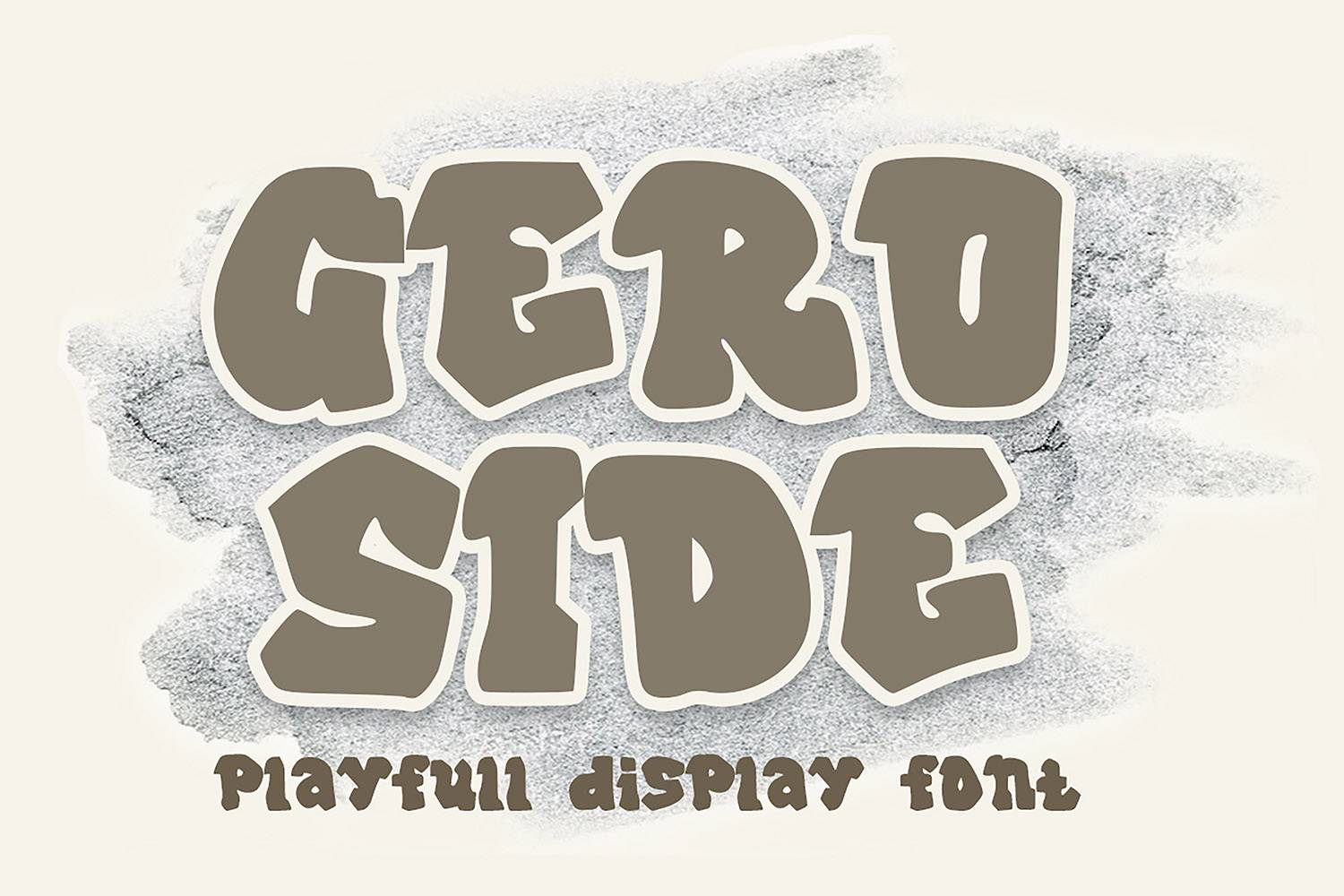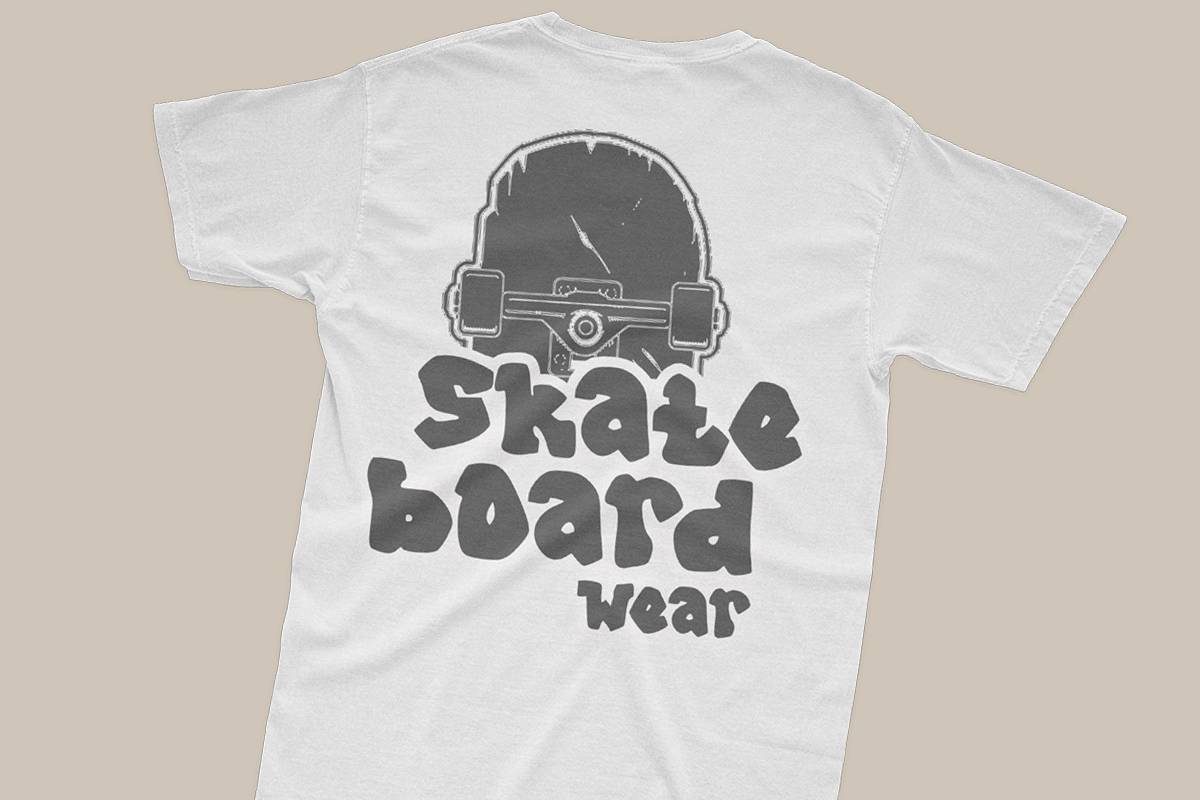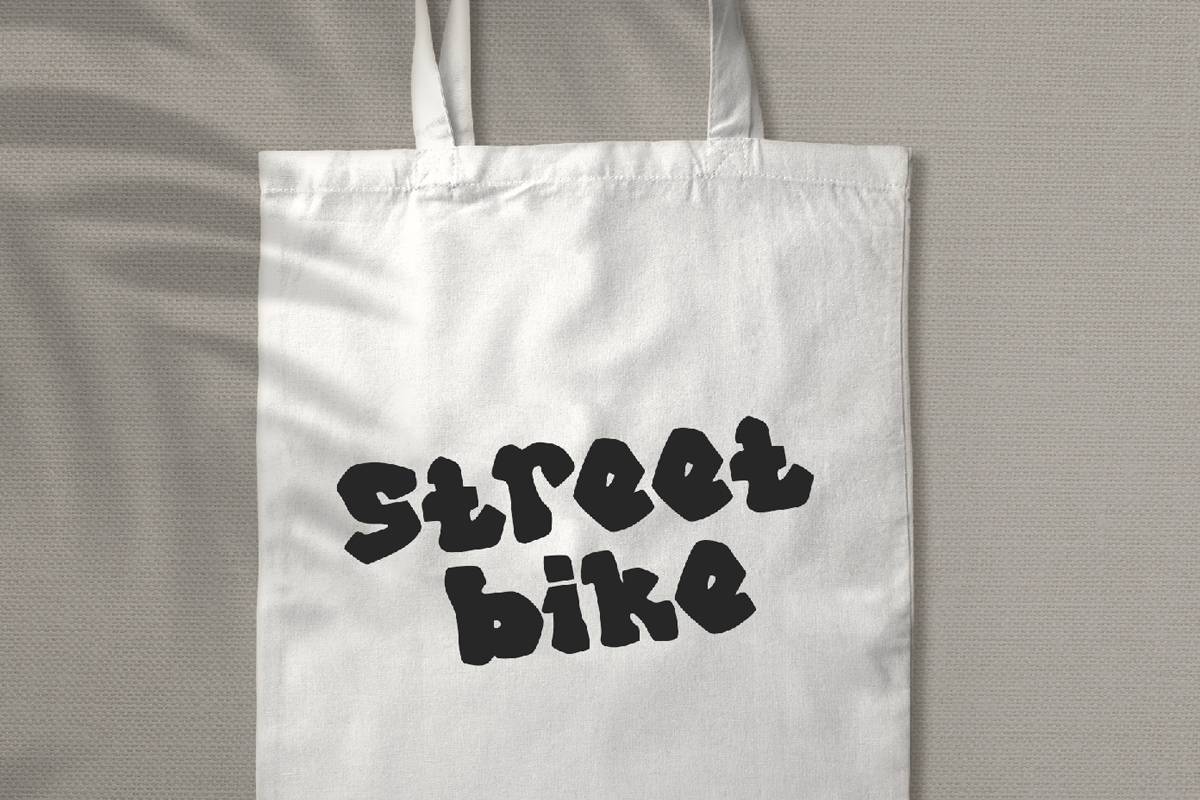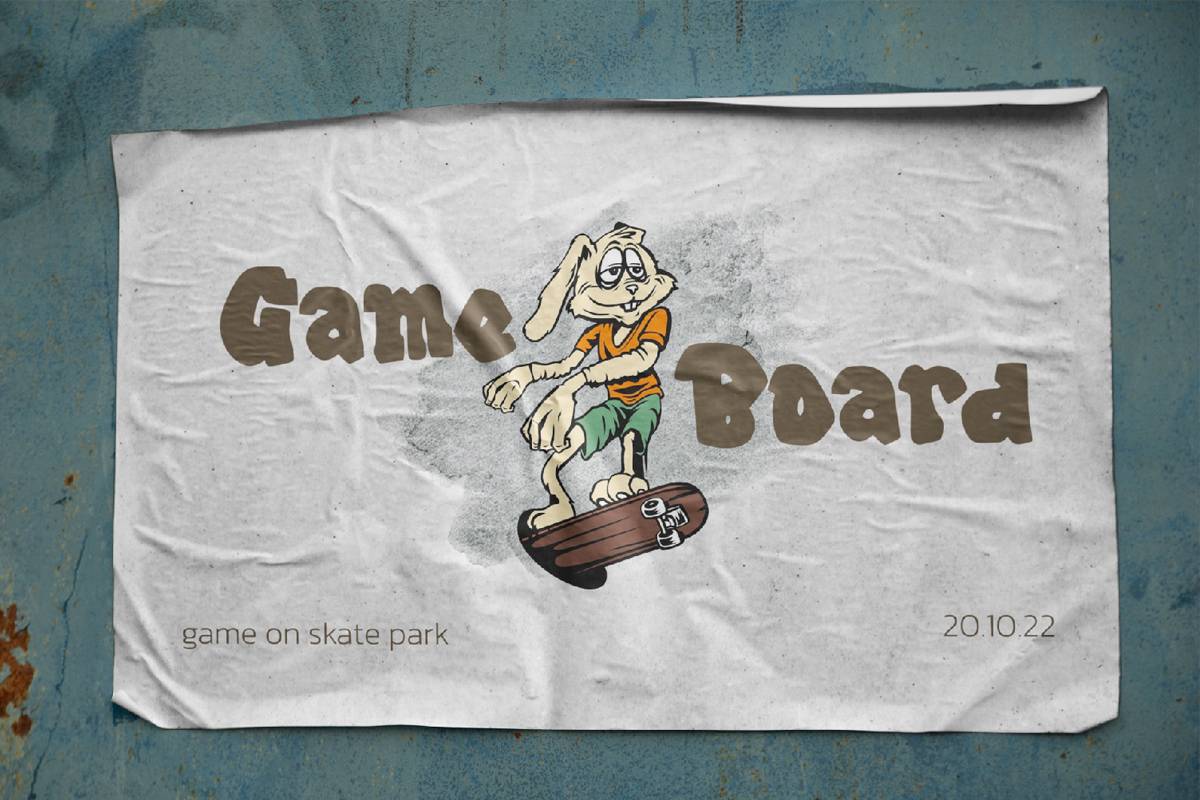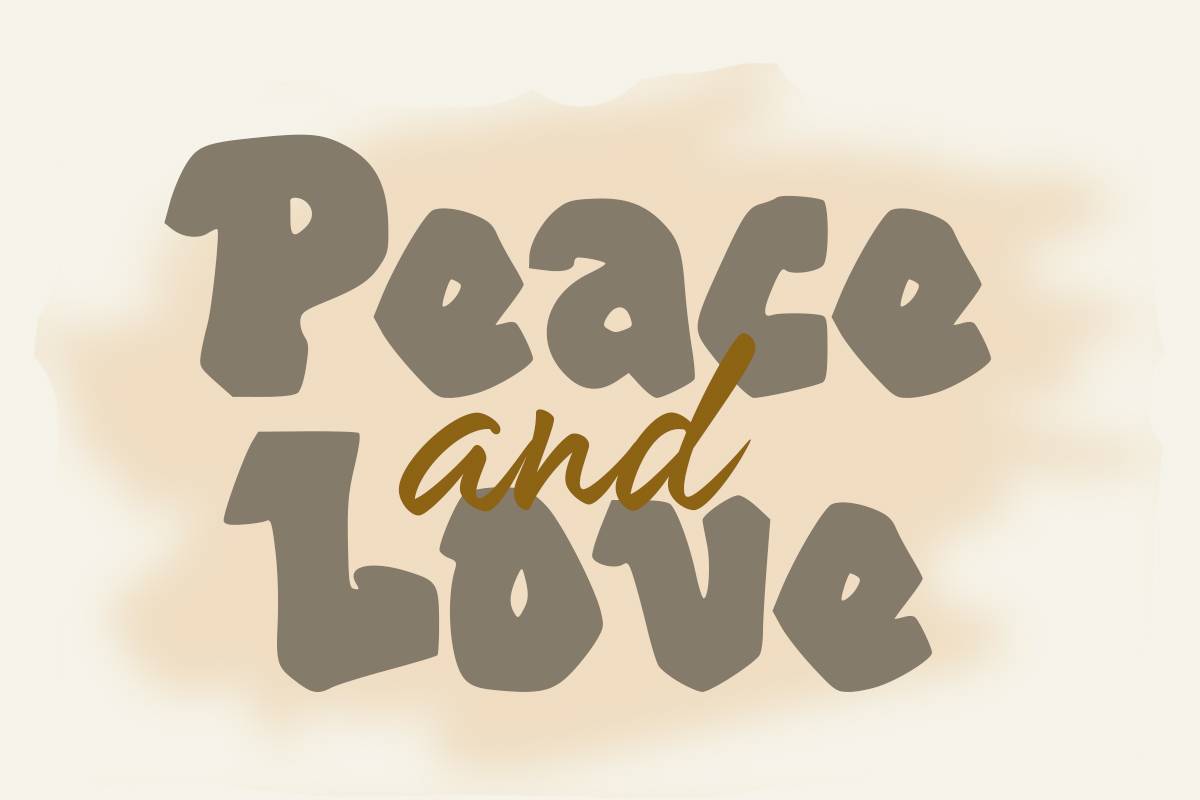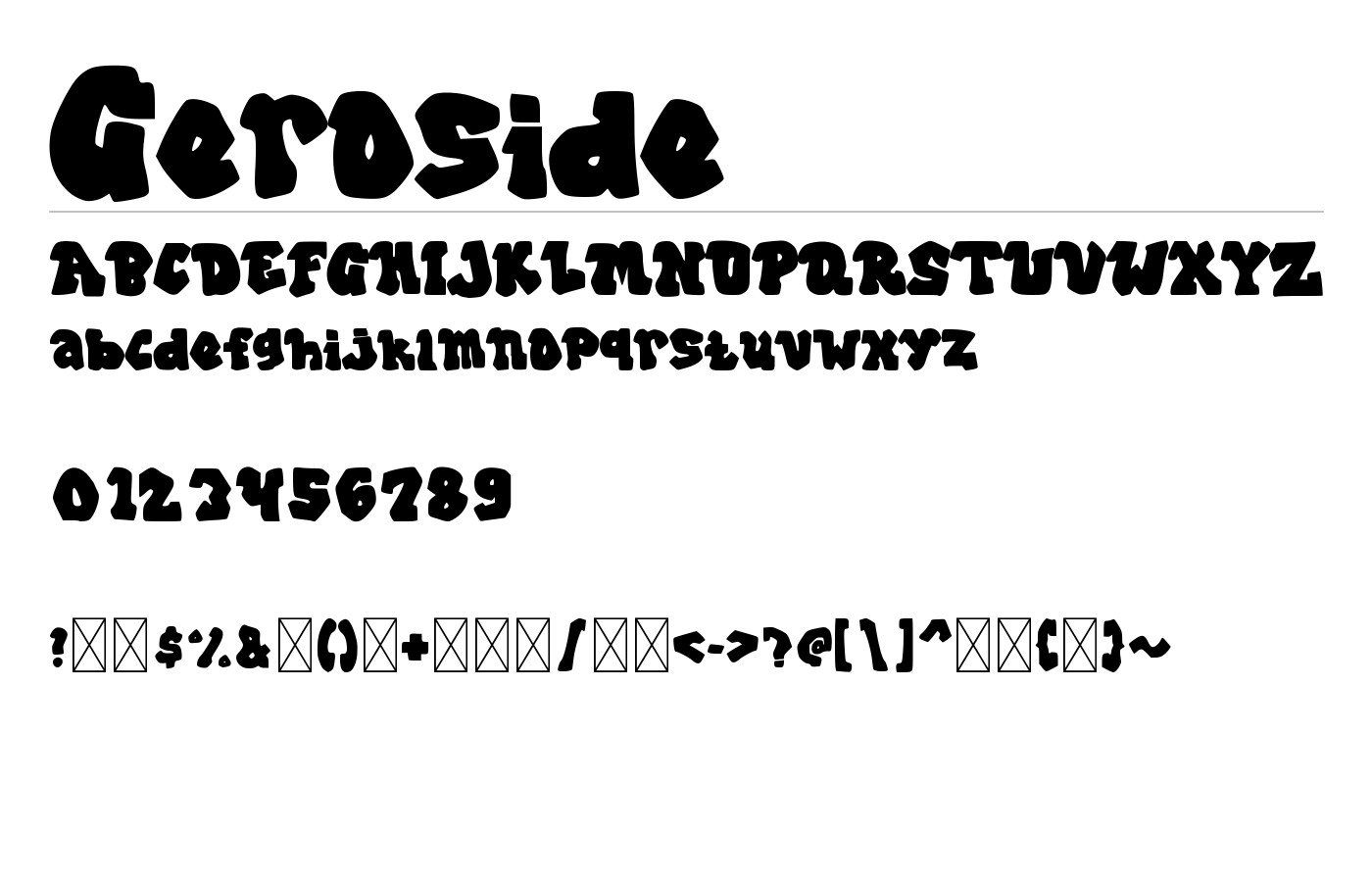
Geroside is a bold, playful display font with a chunky, irregular shape that gives it a fun and casual personality. Its heavy weight and unconventional letterforms make it ideal for eye-catching headlines, logos, and creative projects that want to convey a quirky, approachable vibe. This font works best where a strong, memorable impression is needed rather than for body text.
Geroside Font
About Geroside Font
| Font family | Geroside Font |
| Designer | Letterge Studio |